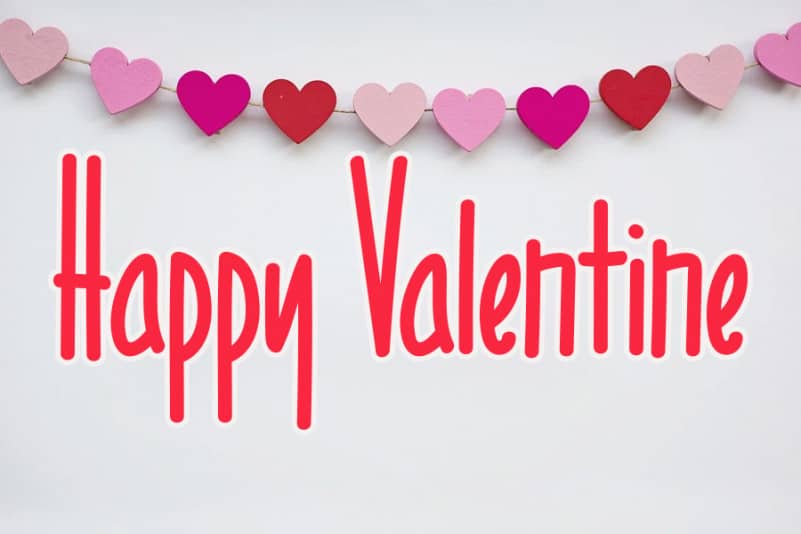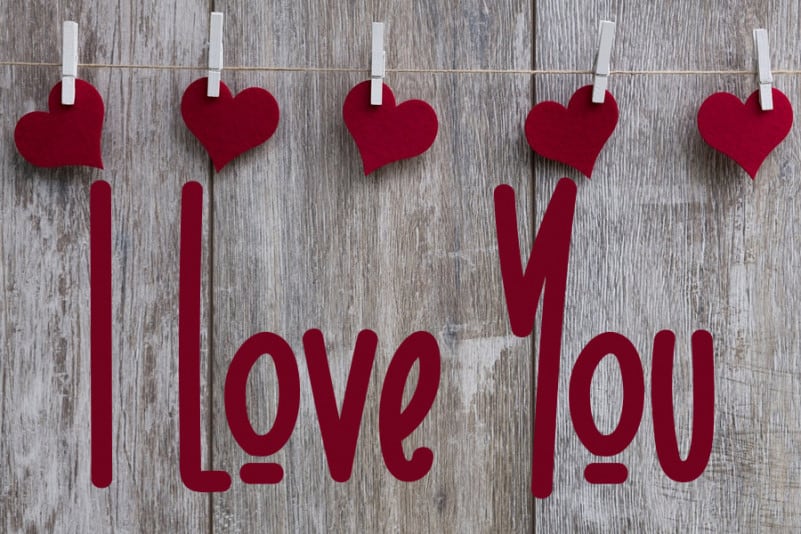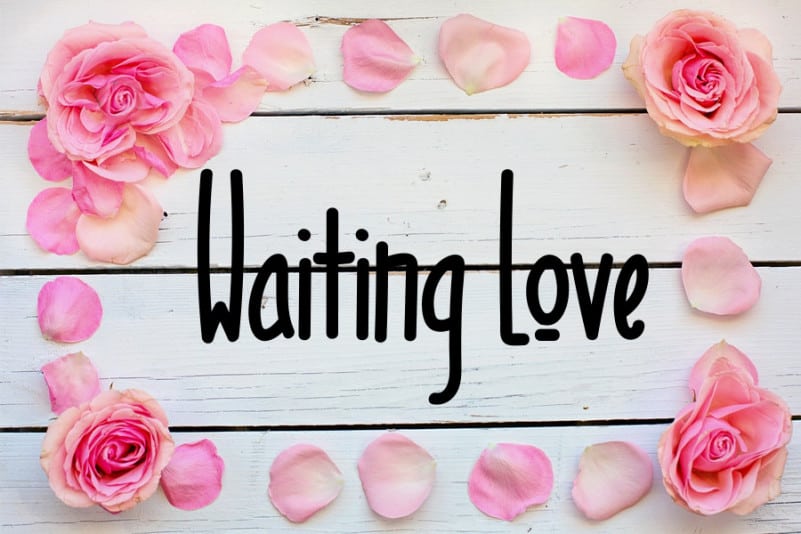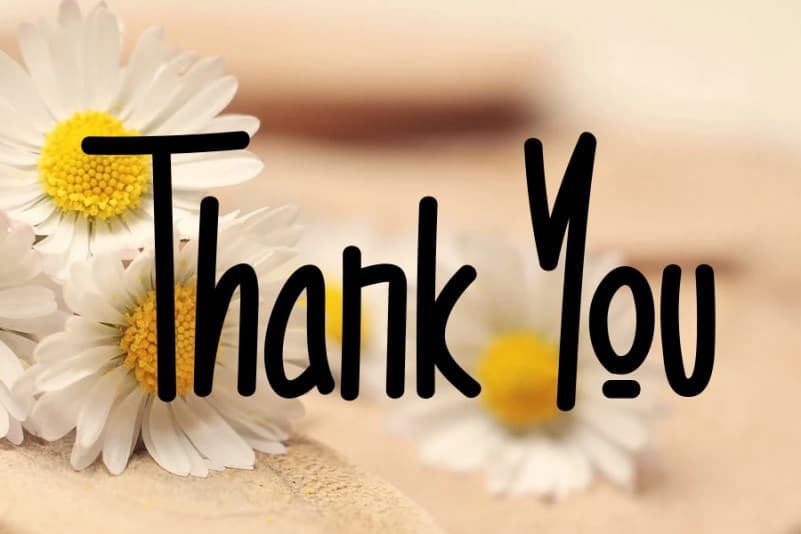
Valentine\’s Day Handwritten Font
Valentine\’s Day Handwritten Font is a simple, thin and tall handwritten font. Incredibly versatile, this font fits a wide pool of designs, elevating them to the highest levels.
Valentine\’s Day Handwritten Font is a very talented product for you to use,
Latest letters that can be used for various products, invitations, wall hangings, weddings, and more.